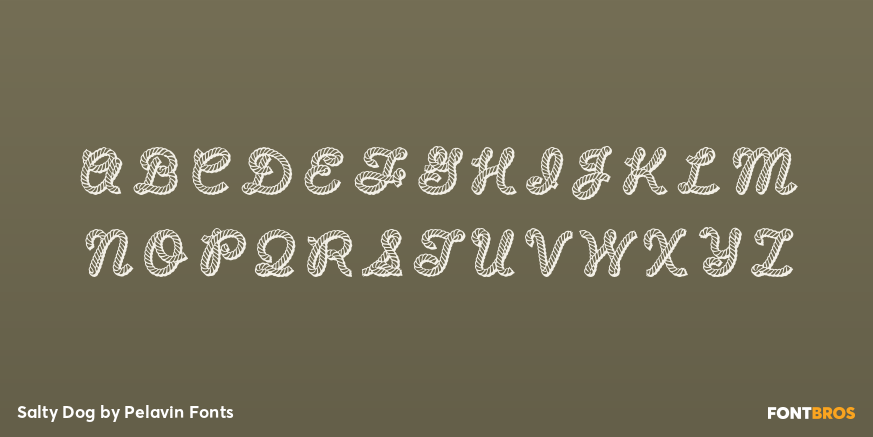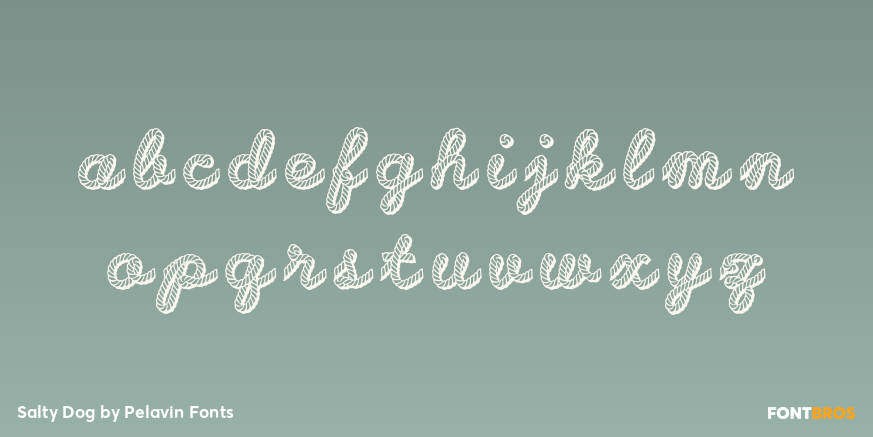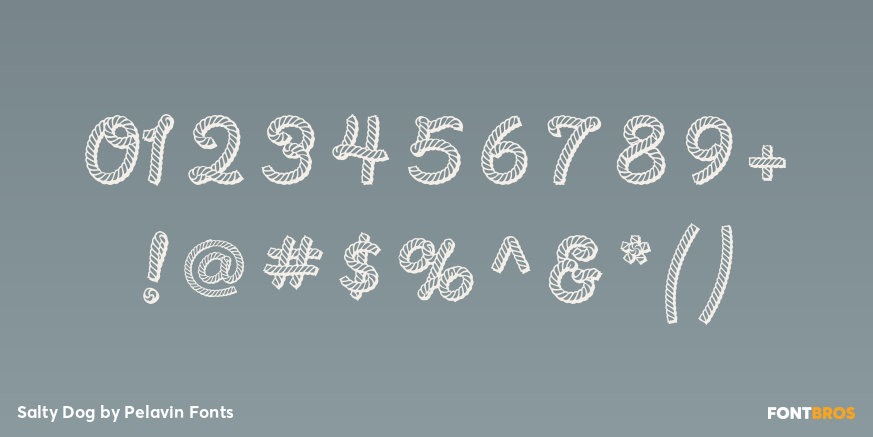
Salty Dog
Font Family by Pelavin Fonts
Salty Dog's a rough-hewn but sturdy rope script in two styles; a ready-made outline version and a solid that suits it for a variety of multicolor highlight and shadow effects. Rich with the hearty spirit of the wide open sea, landlubbers'll also find it handy for rounding up them dogies, Bronco bustin' and showin' off fancy lasso tricks.
Salty Dog Solid
Salty Dog Outline